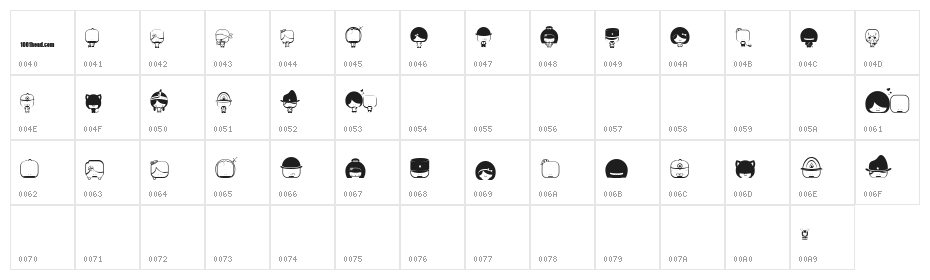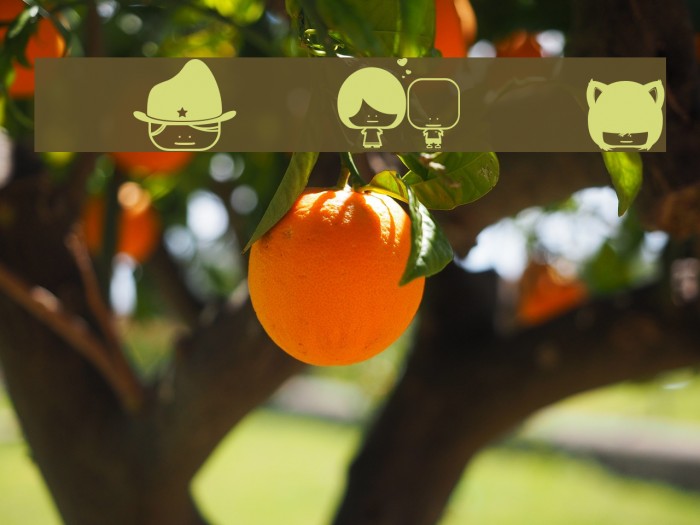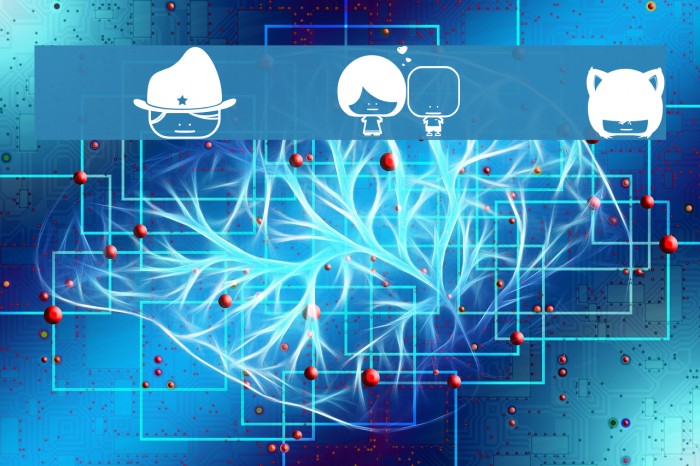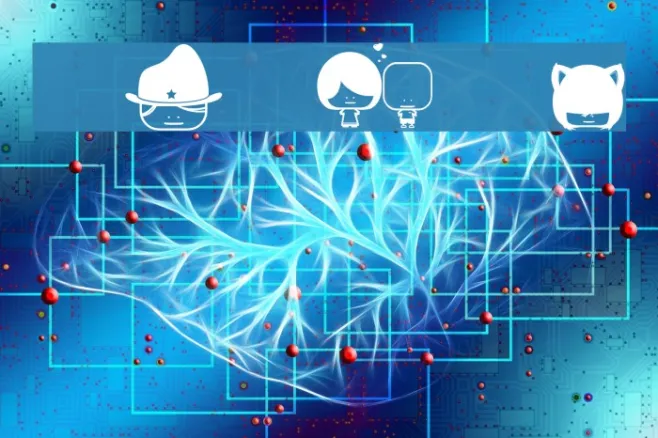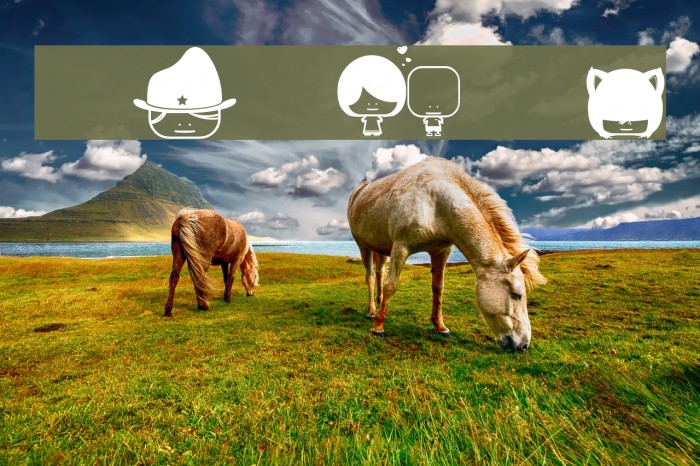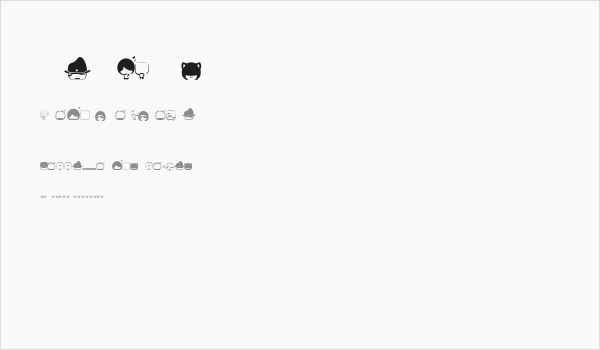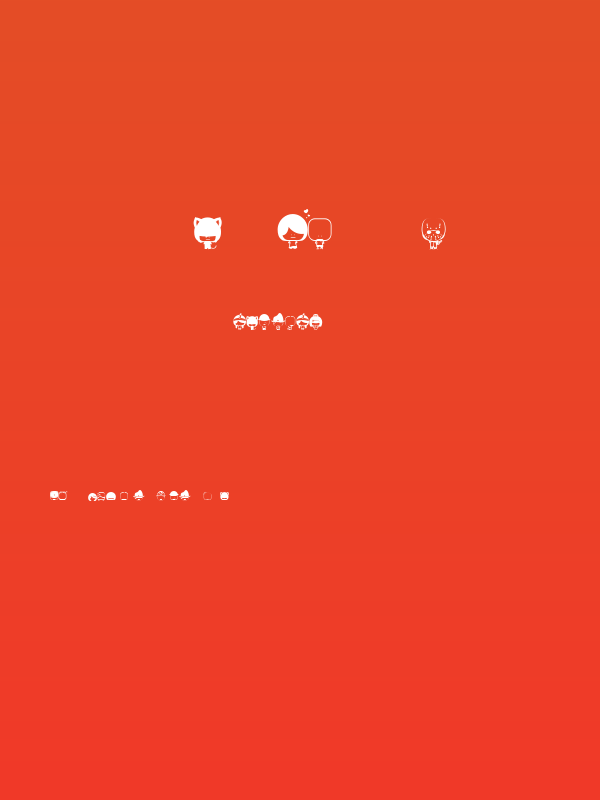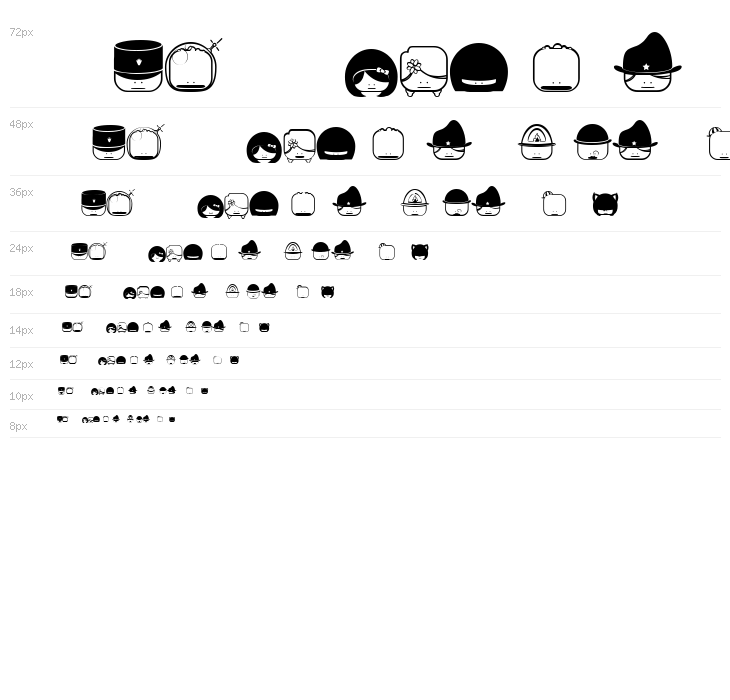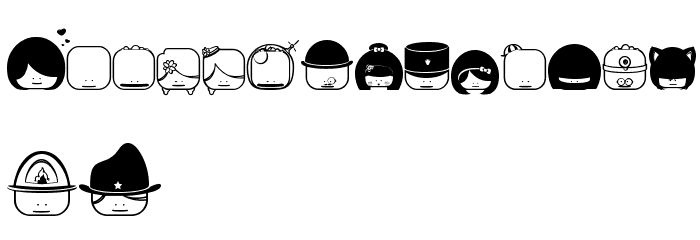
Toy Stum Font
Toy Stum Description
A playful, decorative dingbat font featuring a variety of cartoon-style character illustrations, each representing a different letter, number, or symbol with unique facial expressions and accessories.
| Overall Style | Playful, Whimsical, Decorative |
| Use Case | Logos, Posters, Invitations, ChildrenΓ’β¬β’s materials |
| Proposed Projects | ChildrenΓ’β¬β’s books, party invitations, playful branding, stickers, educational materials. |